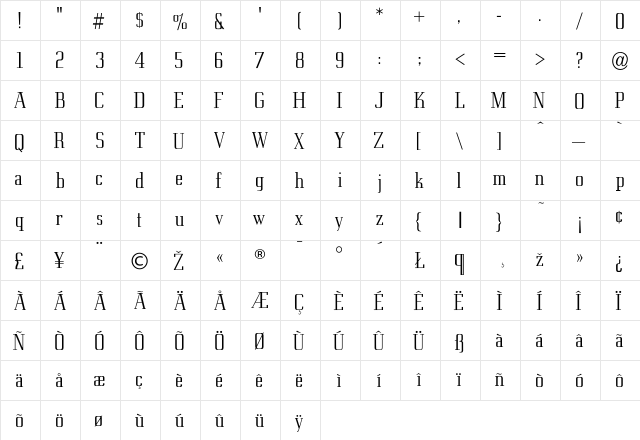
EdenLight Regular
Design Context for EdenLight Typeface
EdenLight takes a measured approach to typography — its balanced proportions and neutral character make it a reliable workhorse for both digital and print work. Its slender proportions lend an understated elegance to any composition.